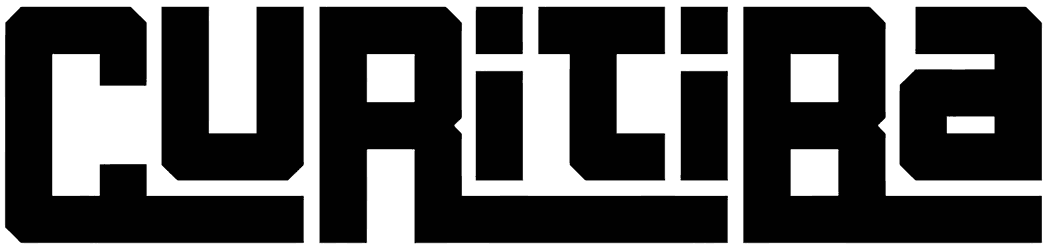
Curitiba Font
Designed byChequered Ink
This item can be effective for making your design letters bold with a modern and industrial appearance. As a techno font with an urban vibe, Curitiba would be a distinct choice for formal or informal projects. Put this square-form font on your future projects such as banners, covers, logos, packaging, or the like, and catch a lot of attention.